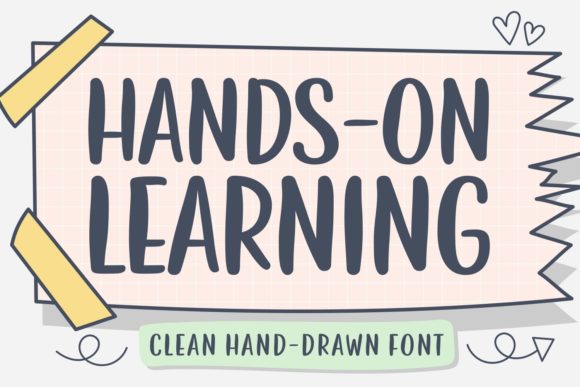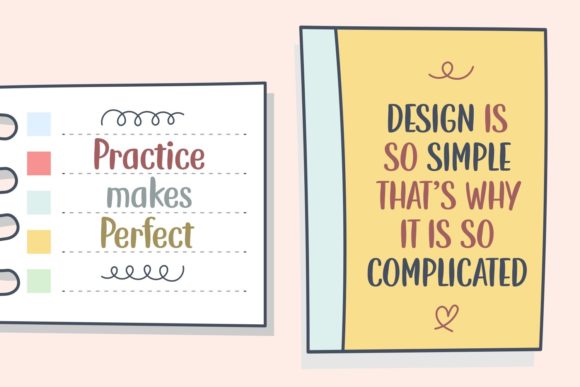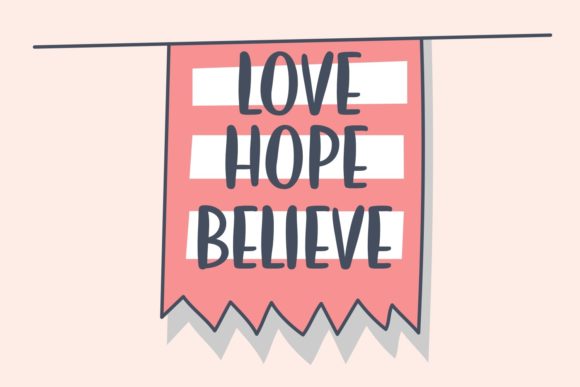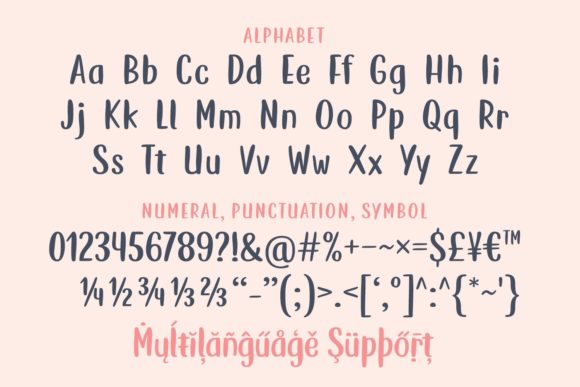
Hands on Learning Font
Hands-on-Learning is a clean and spirited handwritten font. It will be an asset to your font library for greeting cards, teaching materials, display signs, and beyond!